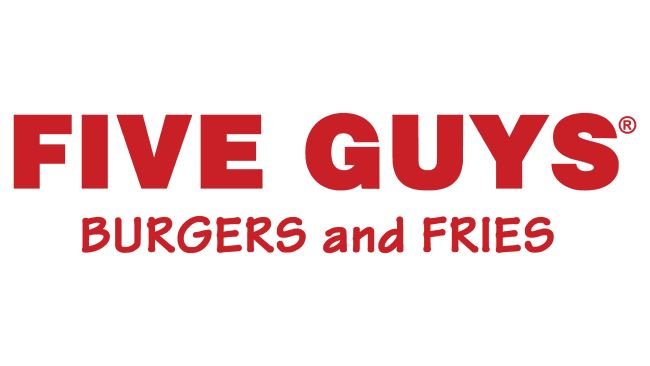
Five Guys font — with Helvetica Black as the closest match for the main wordmark and Tekton Bold for the “Burgers and Fries” sub-branding, both free alternatives available — is the typography of the Arlington, Virginia burger chain founded in 1986 that built its global reputation on a proposition so simple it borders on philosophy: make one thing with the best available ingredients, in whatever combination the customer specifies, and do not compromise on any element of that. Helvetica Black’s absolute no-nonsense authority — the heaviest weight of one of the most functional sans-serifs ever designed, with zero decorative character and complete typographic confidence — communicates this philosophy directly. Two free alternatives address both typographic elements: Main Font Alternative and Burgers and Fries Font Alternative.